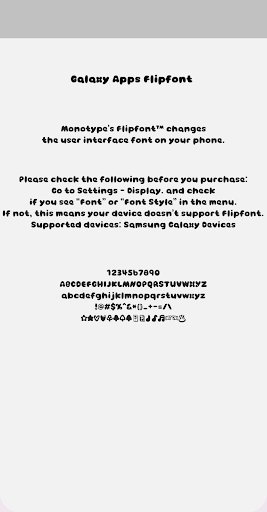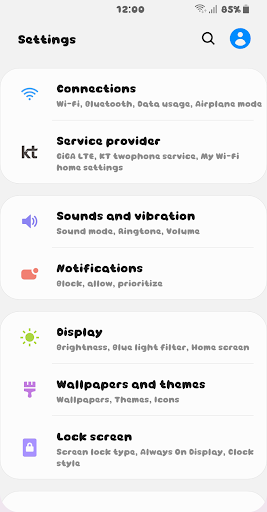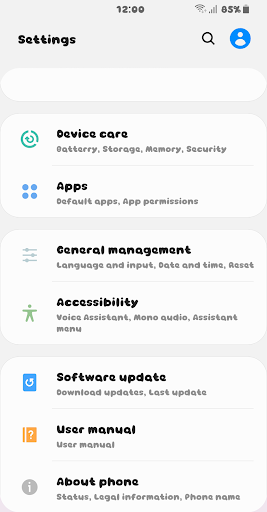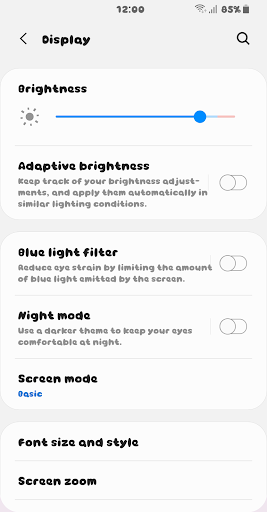
BSTBaguette
This typeface was designed thinking of round, long baguettes and donuts. The round shape is cute and lovely. I expressed the happiness of eating delicious bread on a warm spring day with hearts and flowers.